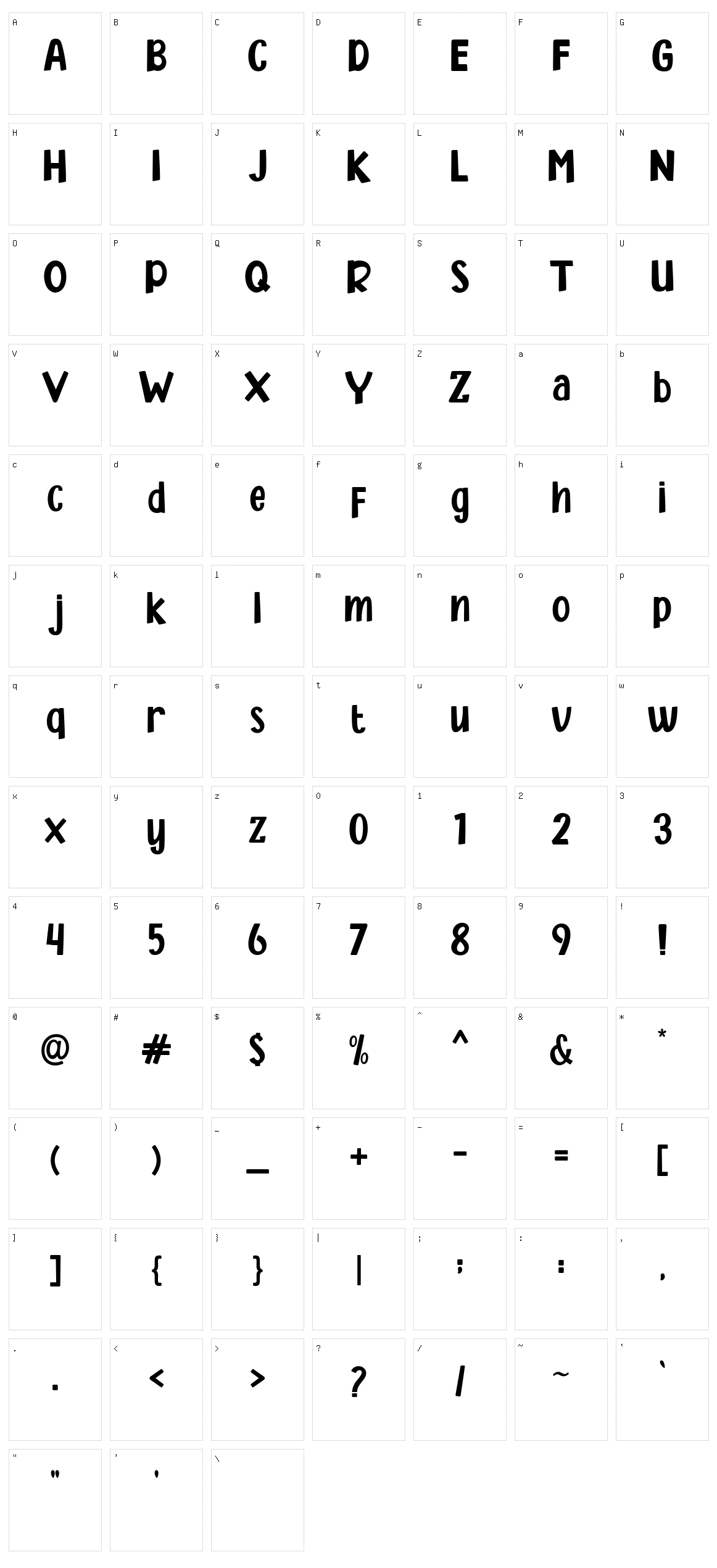
The free font Ranked Hockey is carefully designed by Graphicxell, showcasing a thoughtful balance of creativity and usability and falls under the Cartoon font style. When you download the ZIP file, it contains only 33.98 KB of font files, making it lightweight and quick to download. Please review the license details below to understand permitted usage and distribution rights. If license information is not available, we recommend using this font for personal projects only or contacting the author directly for commercial usage permissions.